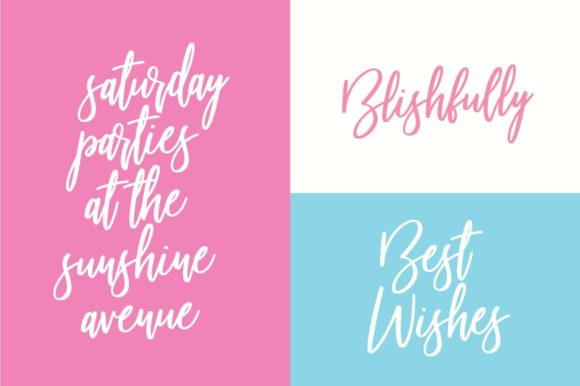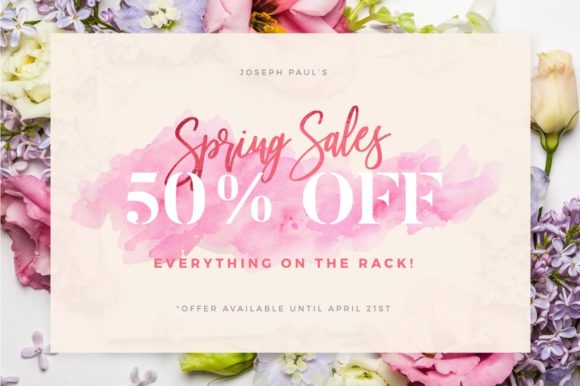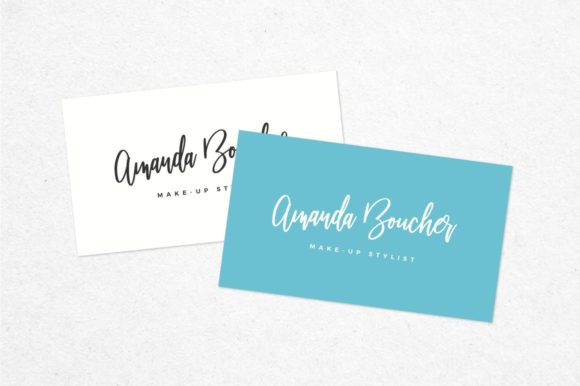
Introduction to Beautiful Bloom Font
Have you ever been on a creative high, where the ideas just keep flowing and the world seems like your canvas? That’s exactly where I was when I stumbled upon the Beautiful Bloom Font – a game-changer in the world of design resources. Its unique and authentic style instantly caught my attention, and I knew I had to dive deeper.
As a designer, you understand the importance of having the right tools to bring your creative project to life. The Beautiful Bloom Font is a valuable addition to any design arsenal, offering a contemporary approach to lettering that’s both elegant and modern. With its versatility and high-quality design, this font is sure to inspire your next creative endeavor.
Key Features of Beautiful Bloom Font
- High-quality design resource perfect for creative projects
- Includes a transparent background for easy customization
- Comes in a range of sizes, from 12pt to 72pt, to suit various design needs
- Features a high resolution of 300 DPI for crisp and clear text rendering
- Unique, hand-drawn design with intricate details and subtle texture for a natural look
- Perfect for use in digital and print design, including logos, graphics, and typography
Honest Review: Beautiful Bloom Font
As a designer, I’m always on the lookout for high-quality design resources to enhance my creative projects. The Beautiful Bloom Font caught my attention with its delicate, hand-drawn design that exudes elegance and sophistication.
- ✨ The Beautiful Bloom Font offers a high-quality, vector format that allows for scalability and flexibility.
- ✨ The font comes with a transparent background, making it easy to incorporate into various design elements.
- ✨ The font is suitable for a wide range of creative projects, from branding to editorial design.
- ⚠️ The font may not be suitable for large-scale use, as the design can become pixelated at very high resolutions.
- ⚠️ The font family is limited to a single style, which may not be ideal for projects that require multiple font weights or styles.
Overall, the Beautiful Bloom Font is a great addition to any designer’s toolkit. Its high-quality design and versatility make it an excellent choice for a wide range of creative projects.
Tips for Getting the Most Out of Beautiful Bloom Font
Use the Beautiful Bloom Font for your creative project’s headings, titles, and subtitles to add a touch of elegance and sophistication. You can also use it for social media graphics, blog posts, and other design resources. To get the most out of the font, experiment with different font sizes, colors, and combinations to find the perfect look for your design.
The Beautiful Bloom Font is perfect for various design projects, including wedding invitations, baby shower invitations, and other special occasion invitations. It’s also great for creating social media graphics, blog posts, and other design resources that require a high-quality, elegant font.